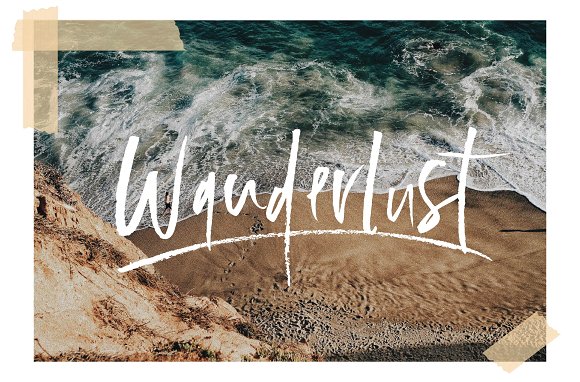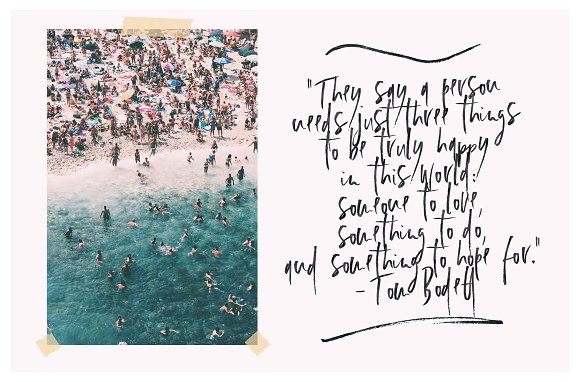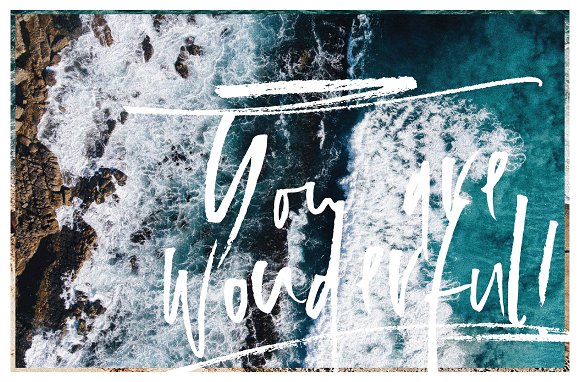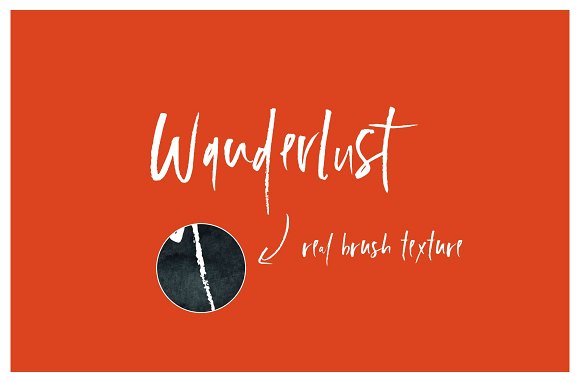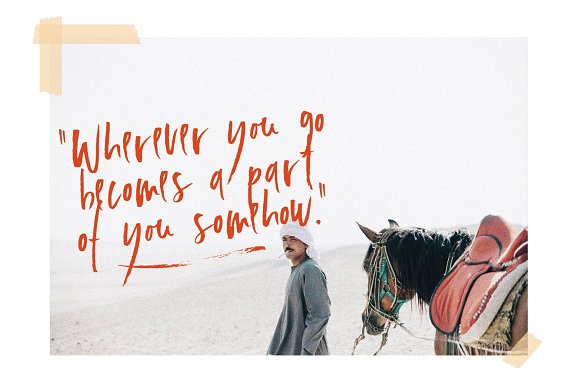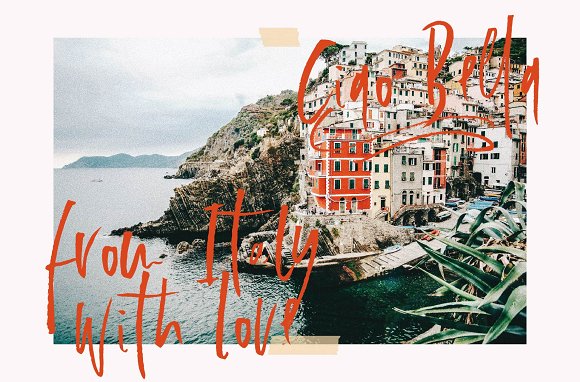
Wanderlust Font Set
Wanderlust is a handwritten signature font family that comes in 3 variations + swashes. It has a real handwritten brush look & texture that makes it the perfect fit for handwritten logos, quotes, invitation cards, personalized social media headers, product packaging and a lot more!